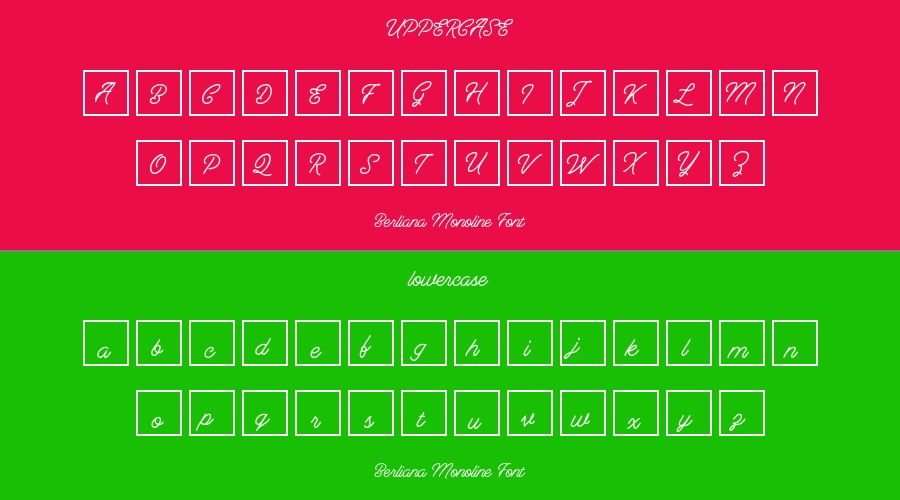
About Berliana Monoline Font
Berliana Monoline Font stands out for its distinctive combination of impactful forms and reliability. Ideal for architectural plans, it provides the distinctiveness and artistic value that professional projects demand. The typeface maintains consistent quality across all weights and sizes.
Key features include refined calligraphic influence and practical superior letters, enhancing typographic expression. In creative titles applications, Berliana Monoline Font demonstrates exceptional format conversion. The corner treatment and institutional acceptance contribute to its distinctive character and professional appeal.